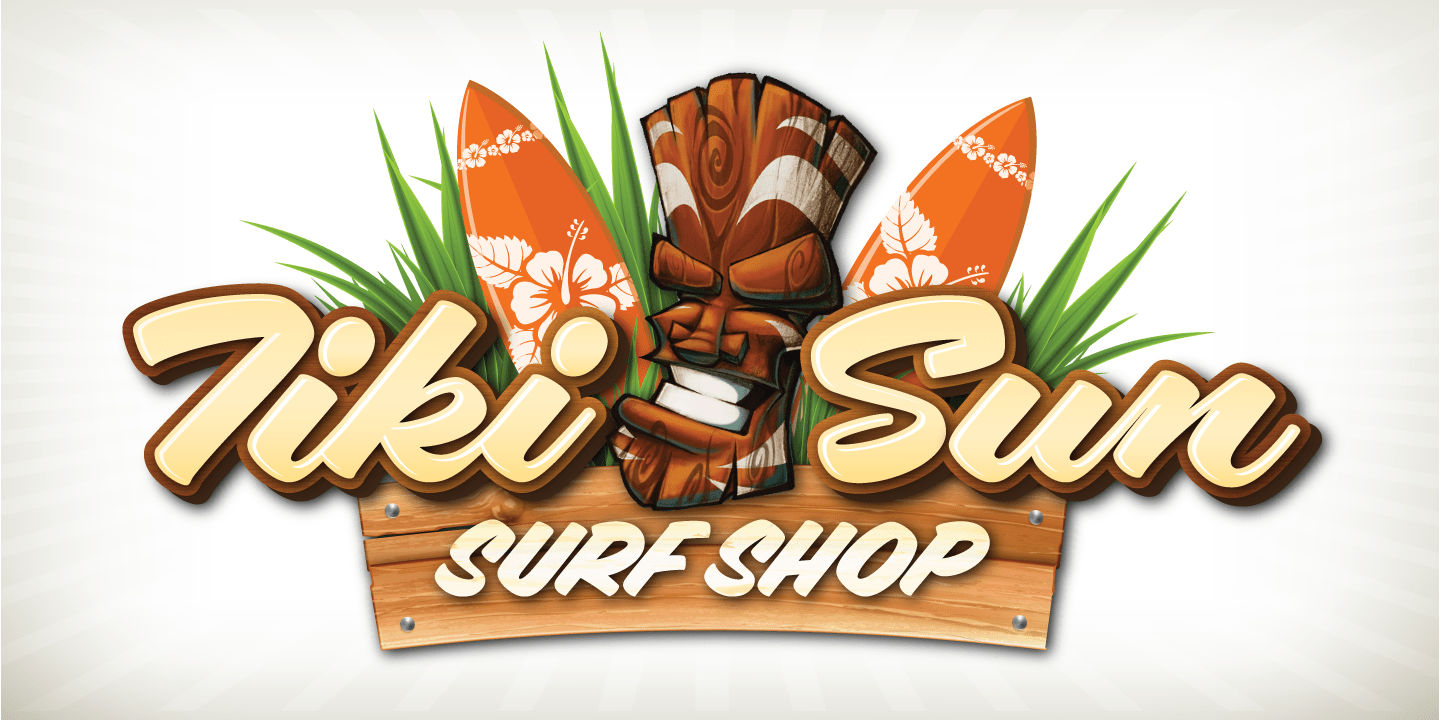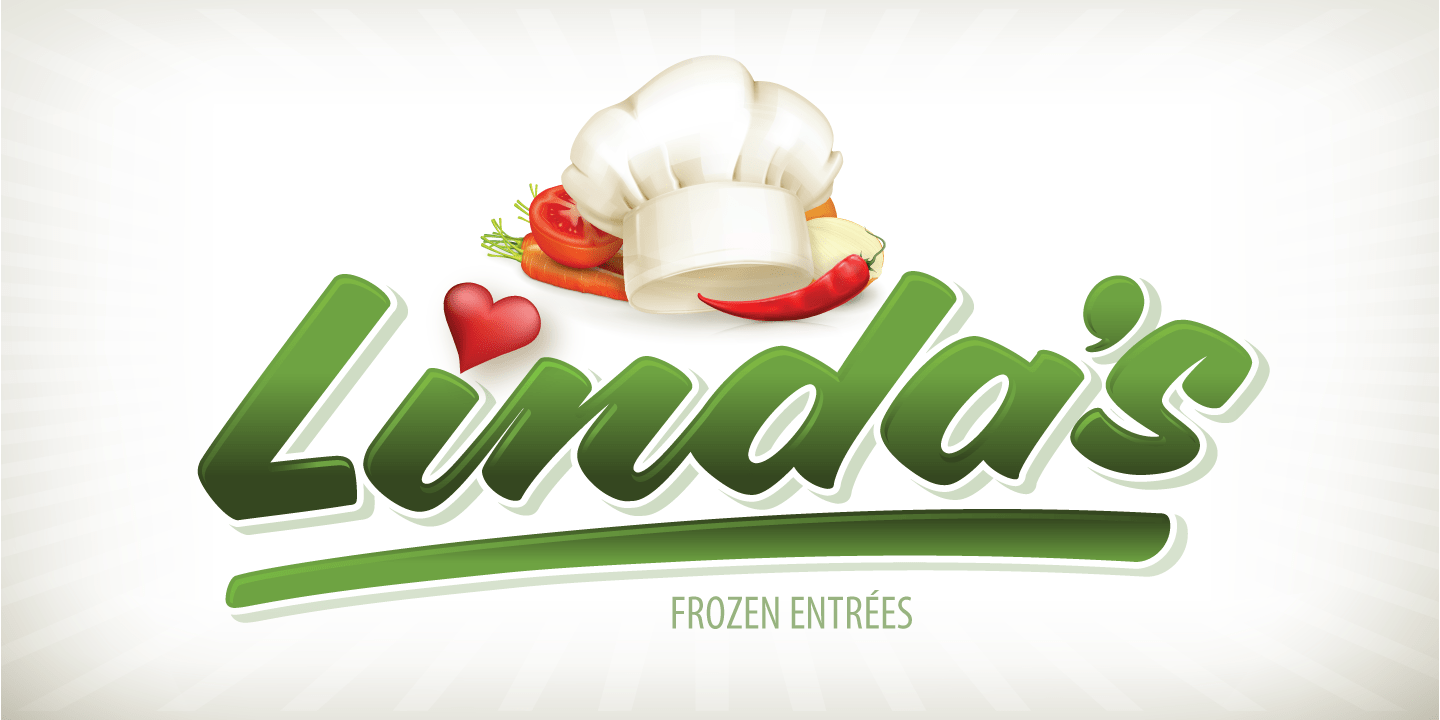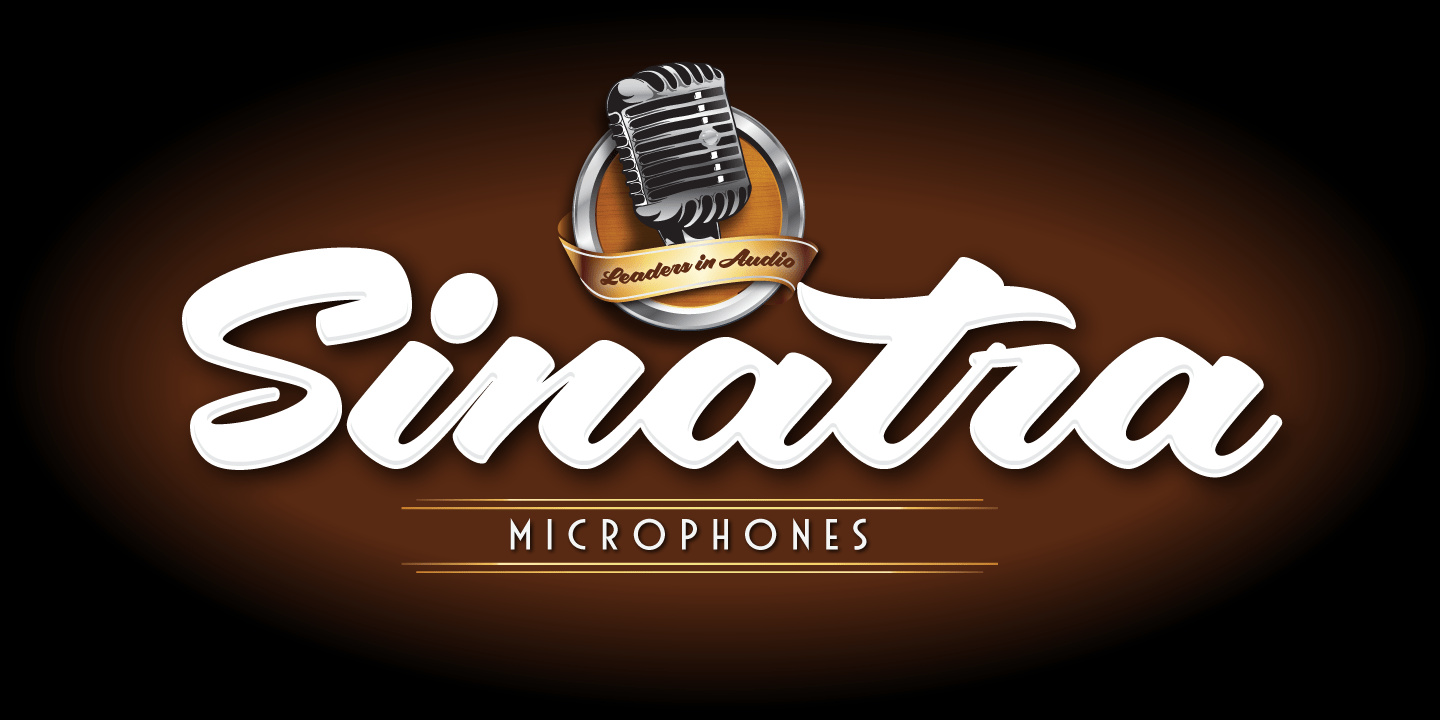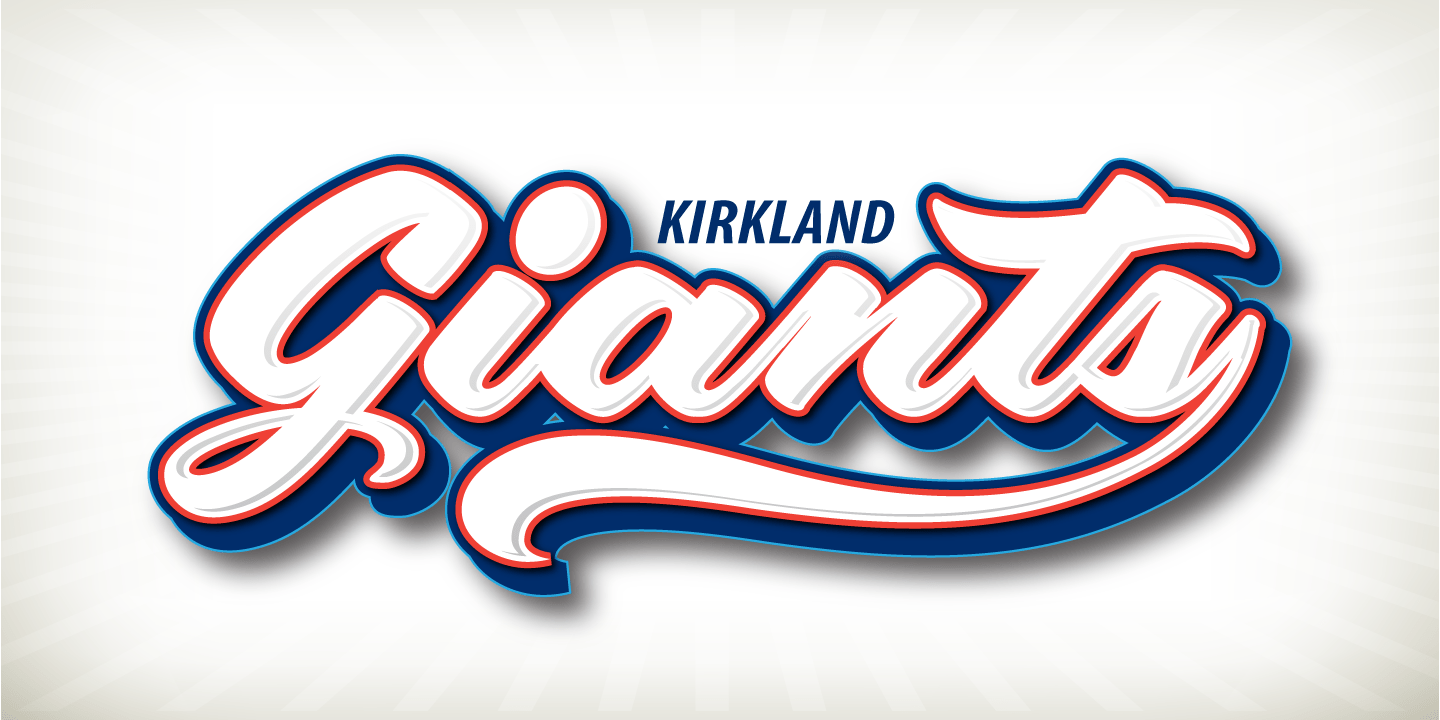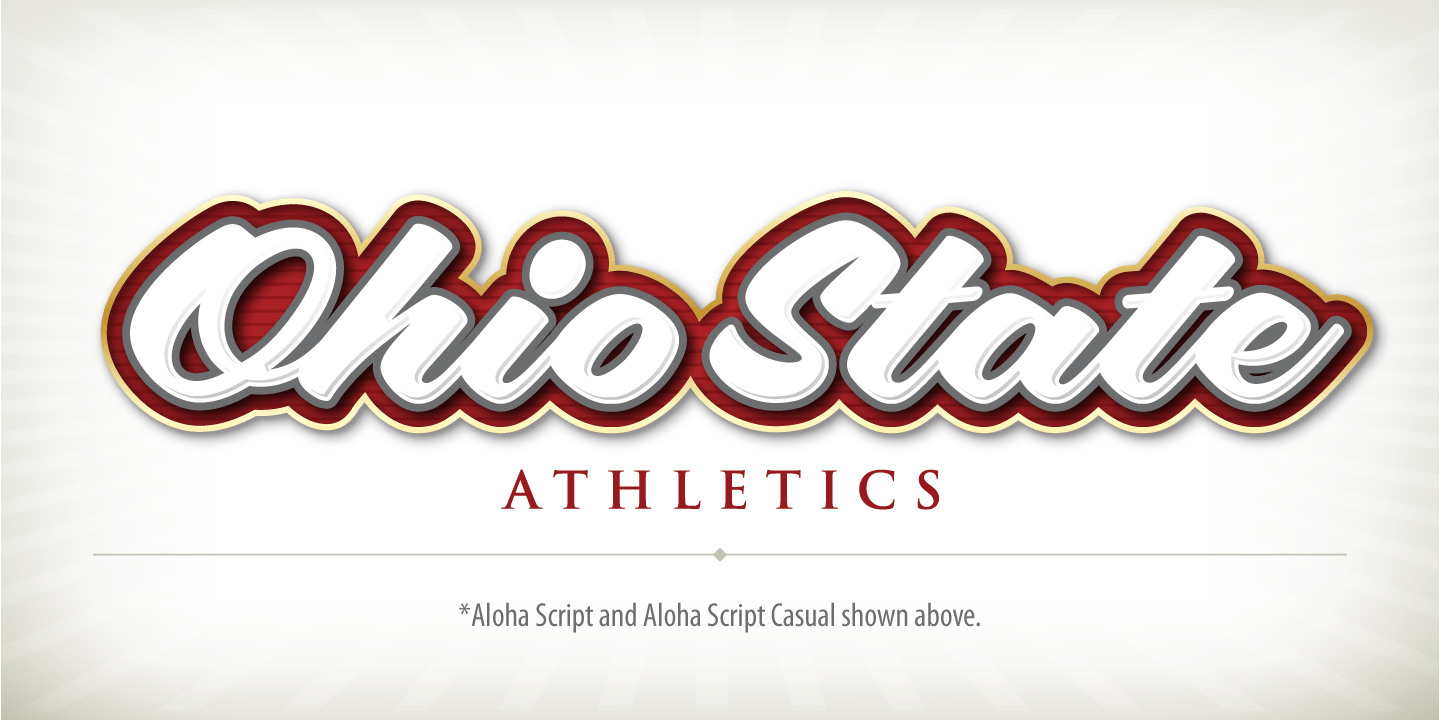
Aloha Script
Font Family by CBdO Fonts
Aloha! Veteran Sign Painter Pierre Tardif and Lettering Artist Charles Borges de Oliveria have teamed up to bring you these fun to use brush fonts. Aloha Script comes in two flavors, Aloha Script and Aloha Script Casual. Both fonts contain the same lowercase, alternates, and ligatures. The difference is in the capitals. By mixing both fonts you can come up with some unique looking logos. Aloha Scripts Casual can be set in all caps for greater emphasis on captions. Aloha contains over a hundred alternate characters, and a nice assortment of ligatures, swashes and underlines. With over a year and a half in development, Aloha is bound to please. Great for logo design, signs, posters, culinary food packaging and so much more. Aloha Script and Aloha Script Casual are $49.95 ea or you can purchase both fonts for a discounted price of $79. Aloha!